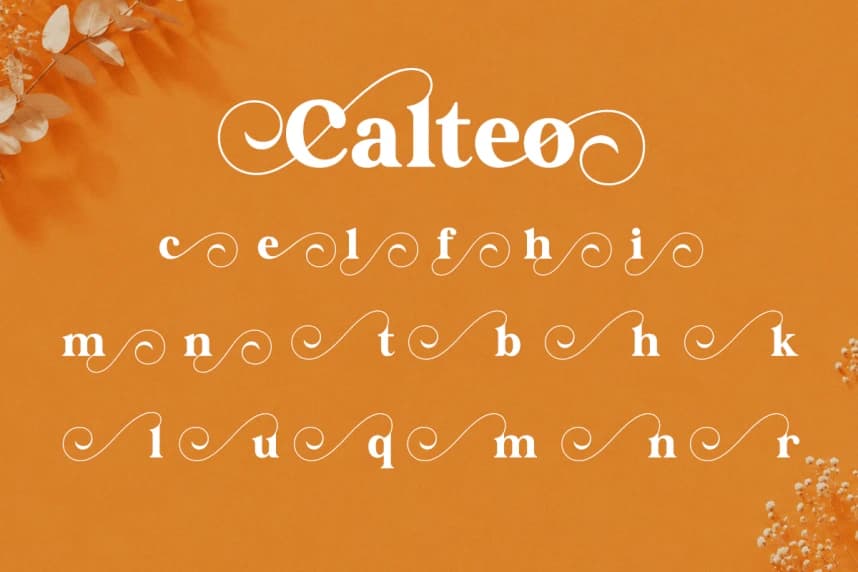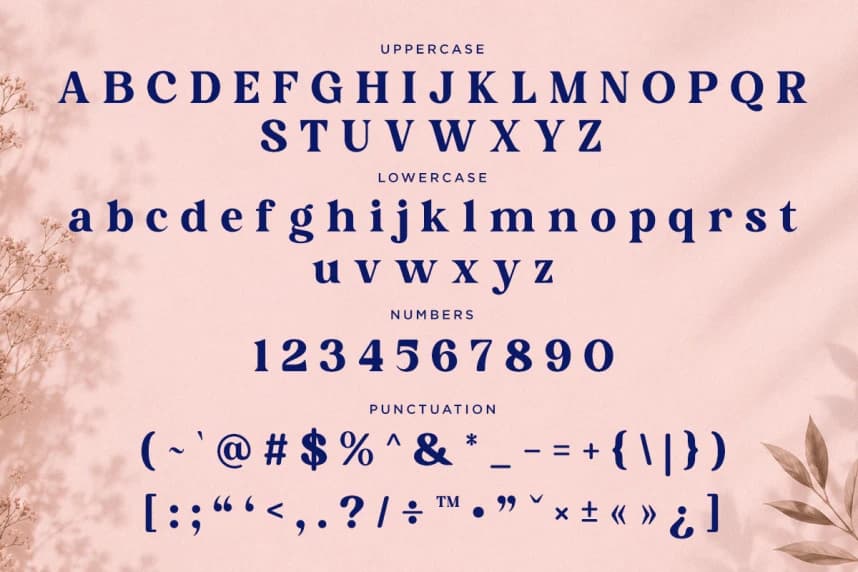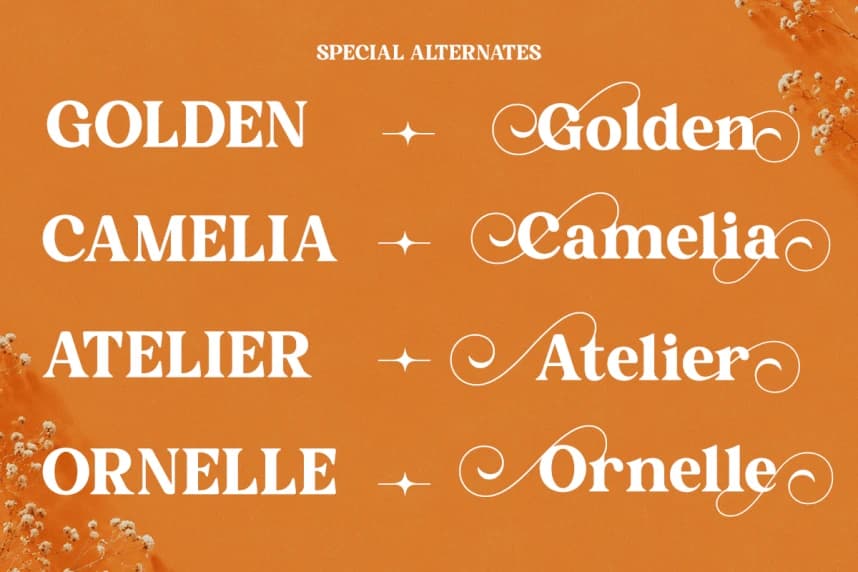
Calteo Font
Calteo Font is a sophisticated modern luxury serif font crafted to bring elegance, femininity, and premium style into your creative projects. Featuring graceful high-contrast letterforms, stylish swashes, and refined decorative curves